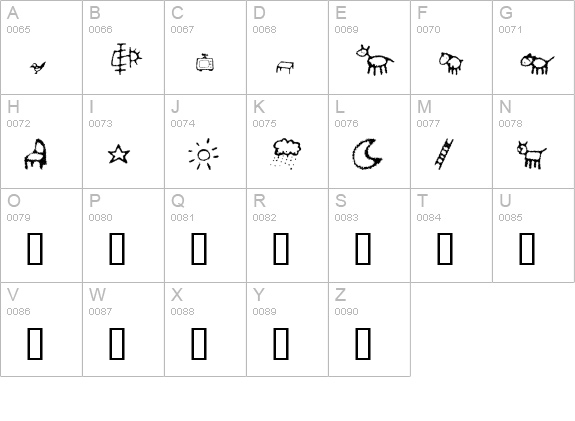
Crayon Kids 2 Font Details
Crayon Kids 2 font is a charming and playful typeface that captures the essence of youthful creativity and imagination. With its handwritten style and colorful appearance, this font is perfect for adding a fun and whimsical touch to your designs. Whether you're working on a children's book, birthday invitation, or school project, Crayon Kids 2 font will bring a sense of joy and lightheartedness to your work. Best of all, Crayon Kids 2 font is available for free download at FontsMarket.com. This means you can easily access this delightful font and start using it in your projects right away. Let your creativity shine with Crayon Kids 2 font and bring a touch of childhood magic to your designs.